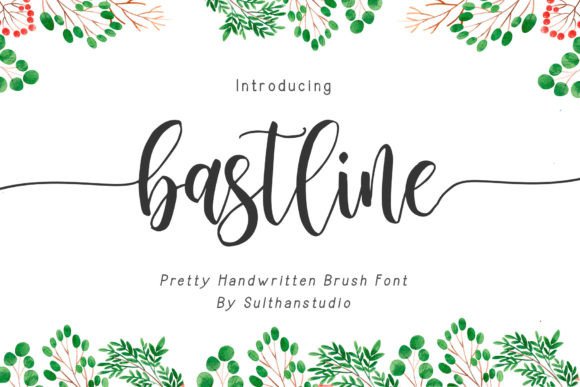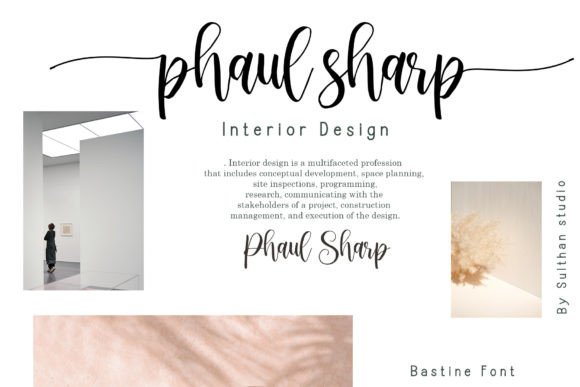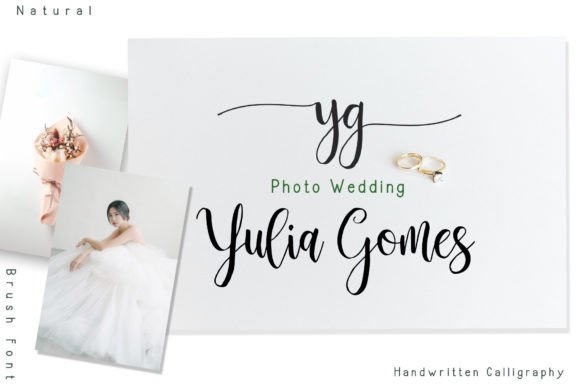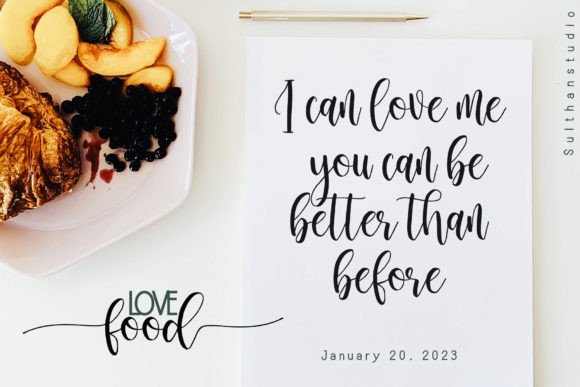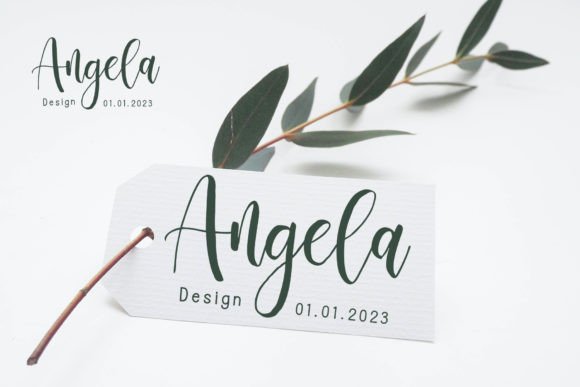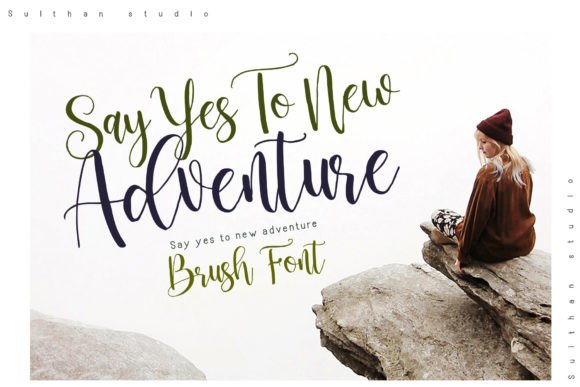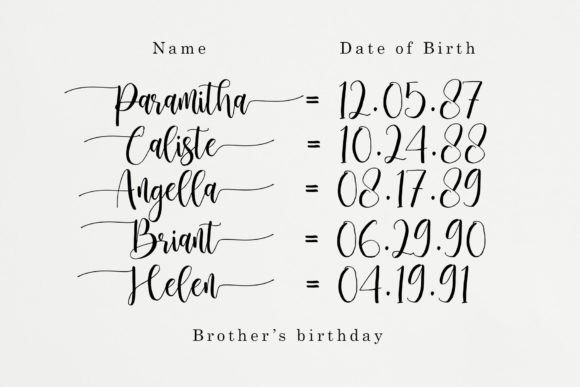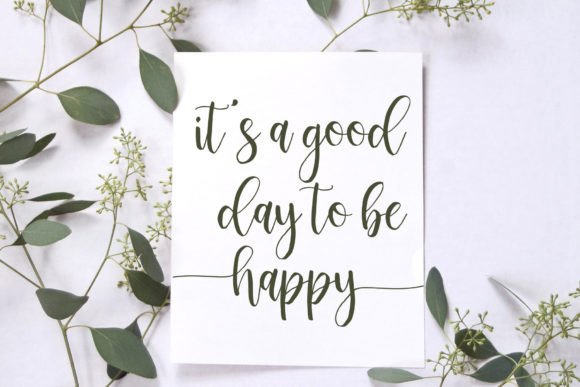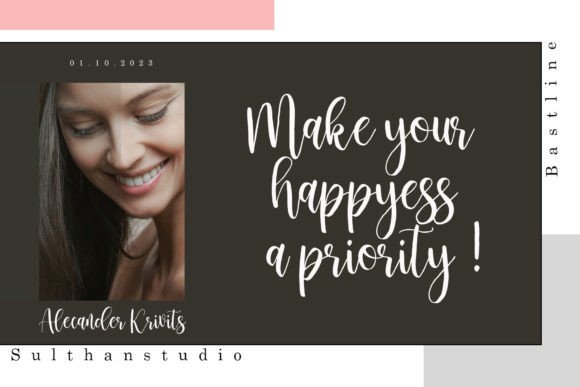
Bastline
Bastline – The natural handwriting font I made is very good for those of you who like or need natural ink script writing, with swashes on the front and back lowercase letters, also uppercase letters have swashes on the front only.
complete font with uppercase, lowercase, punctuation numbers, and also language support.